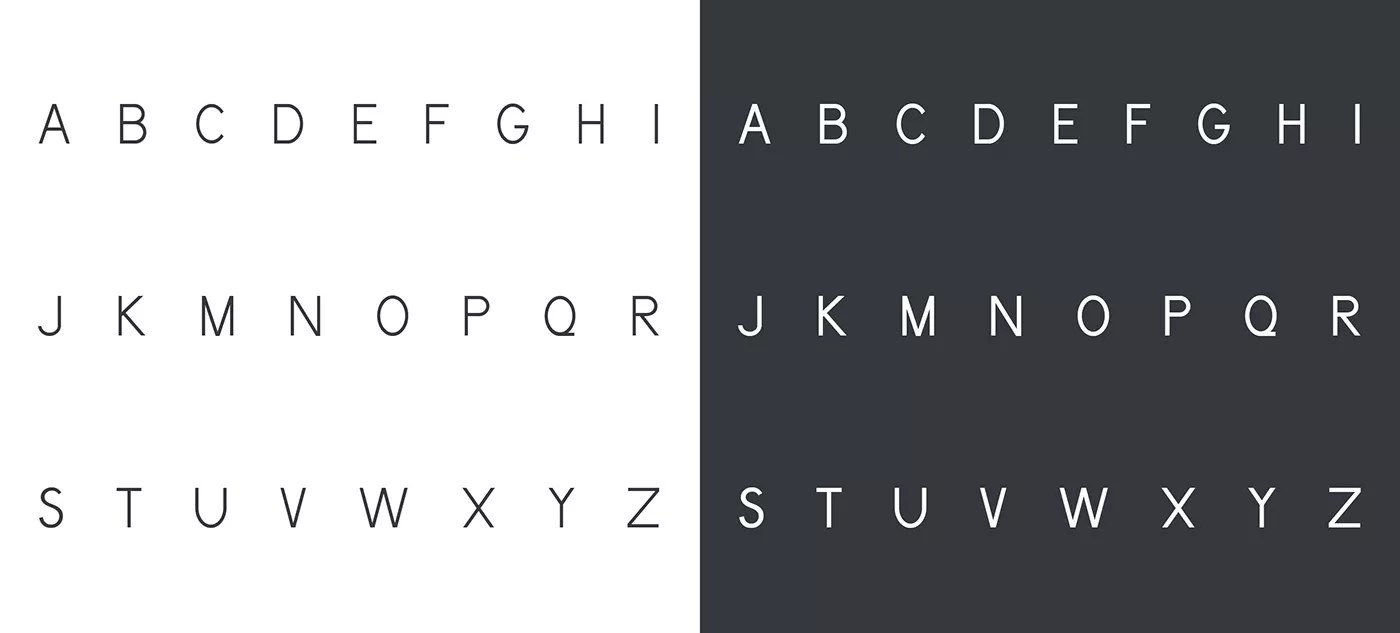
Browse a unique collection of the best basic fonts and thousands of free typefaces to download. Download 10,000 fonts for just $19.95. The basic font is a group member of the sans serif typeface, which is low contrast and helps the reader to read easily.